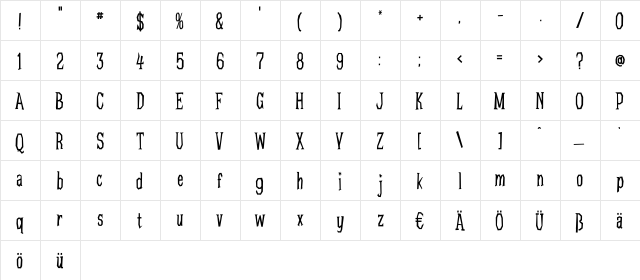
Chaos-Theorie Regular
Design Context for Chaos-Theorie Typeface
Chaos-Theorie offers clean, dependable letterforms without strong stylistic allegiance, making it a practical choice for designers who need flexibility.